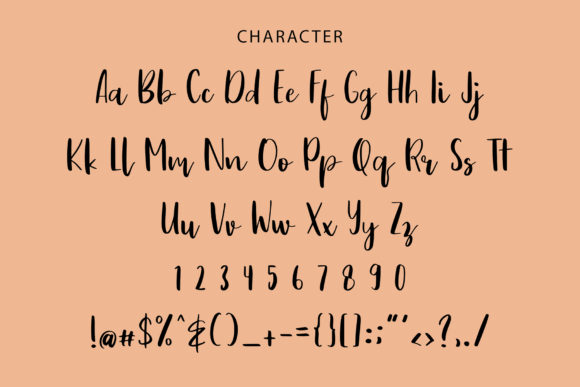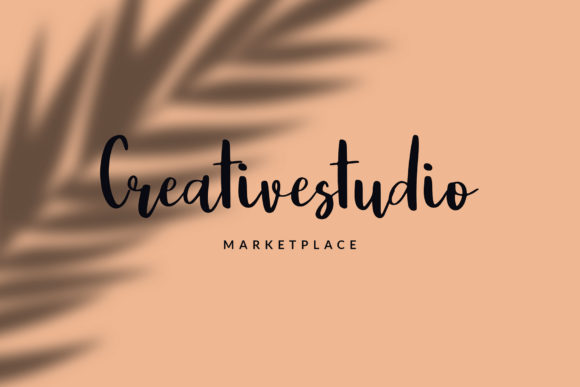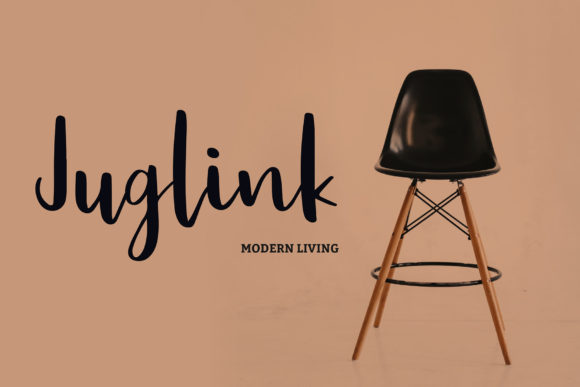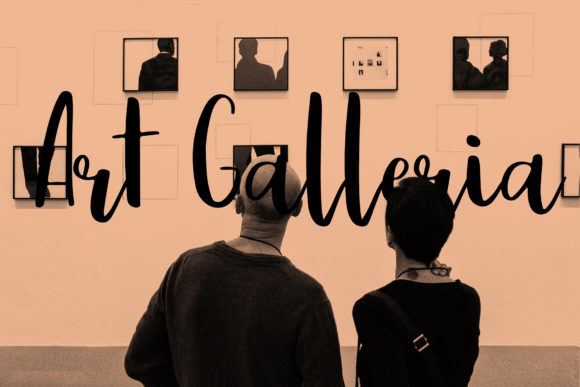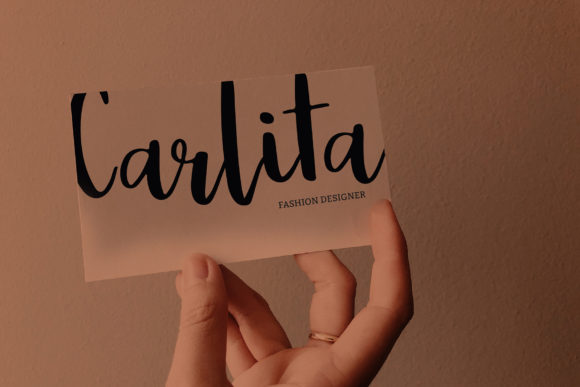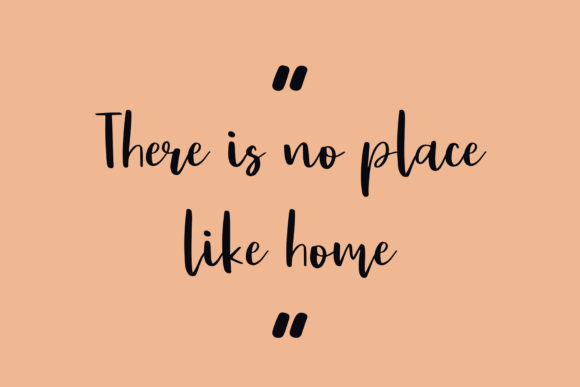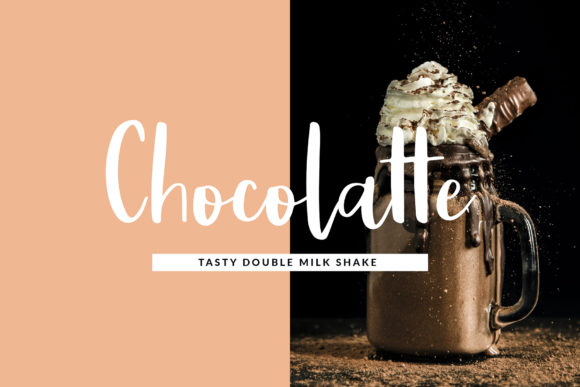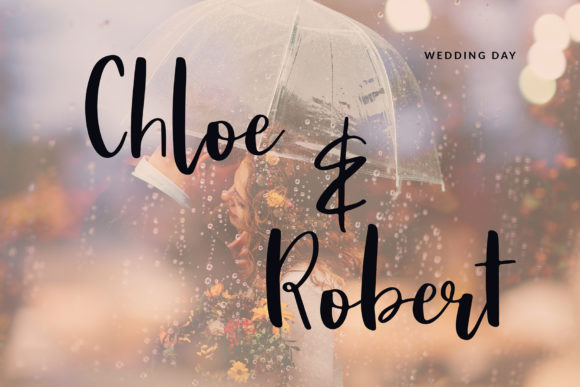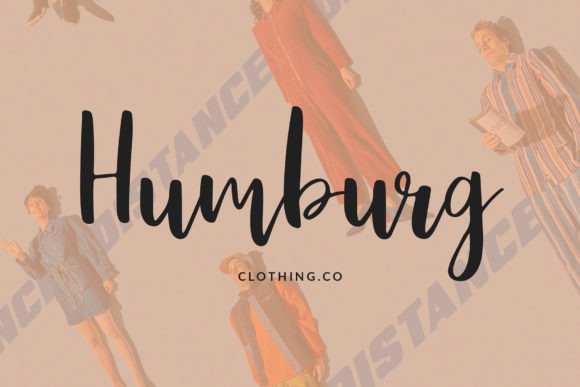
Drawing Book Font
About Drawing Book Font
Drawing Book is a flowing handwritten font, described by an elegant touch, perfect for your favorite projects. Fall in love with its incredibly distinct and timeless style and use it to create spectacular designs!